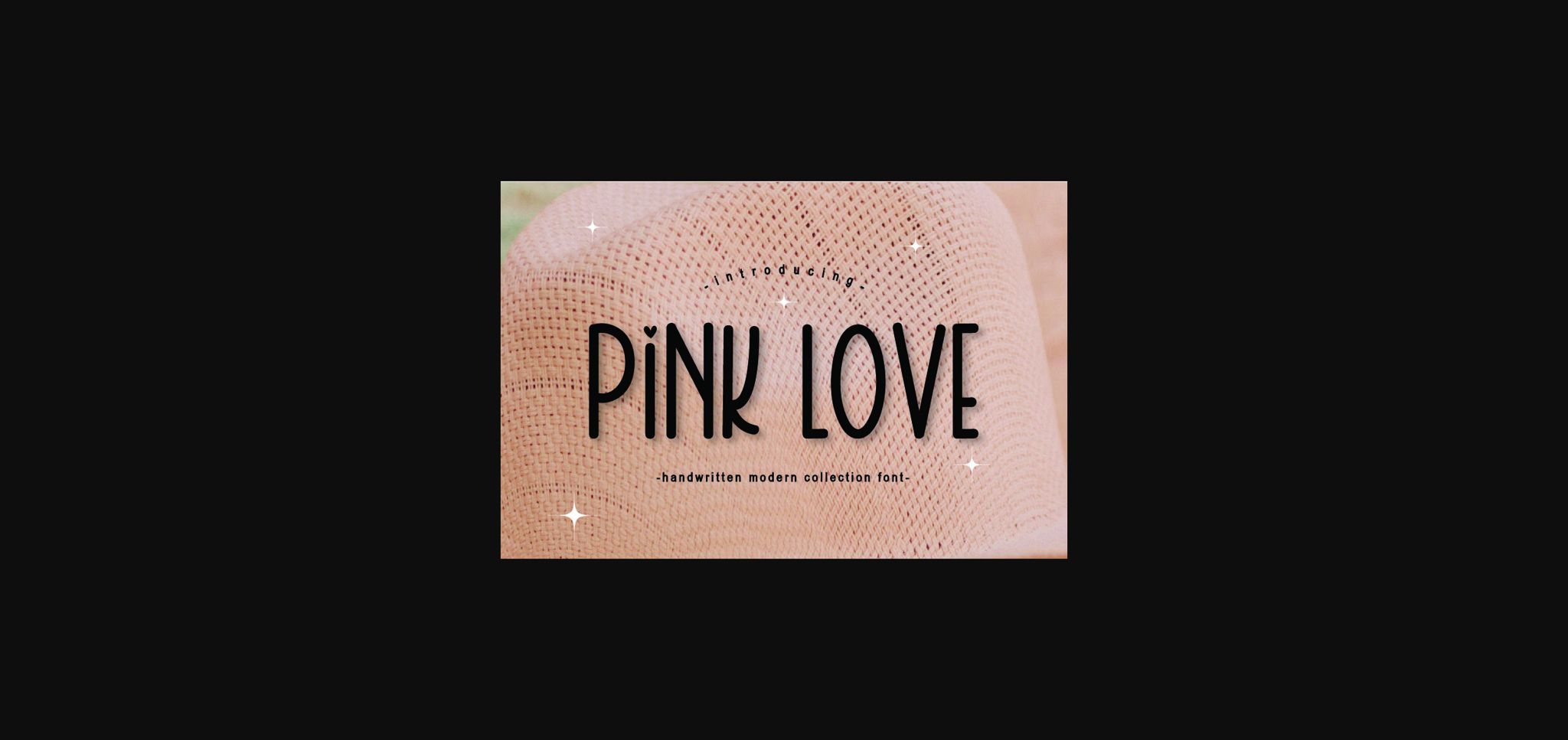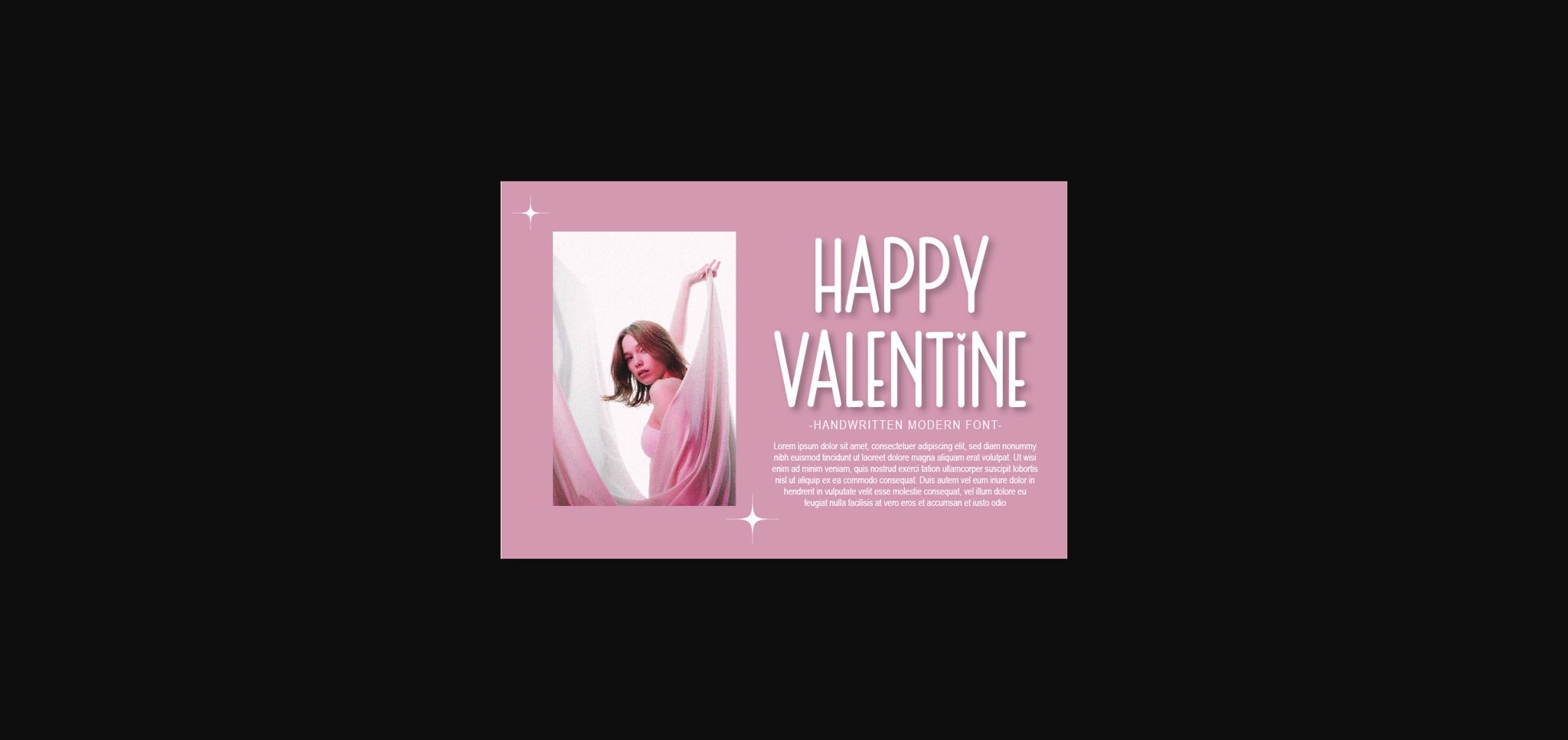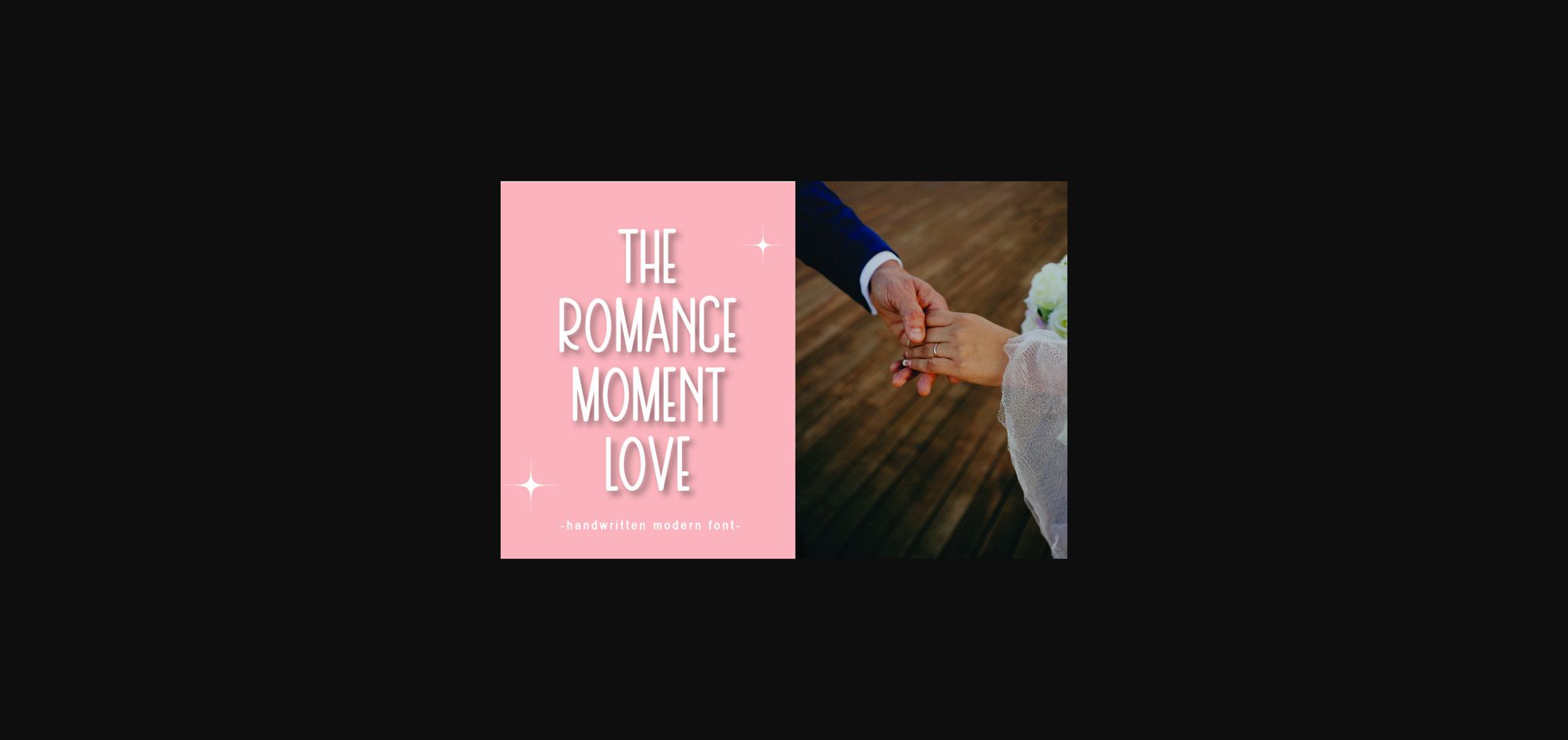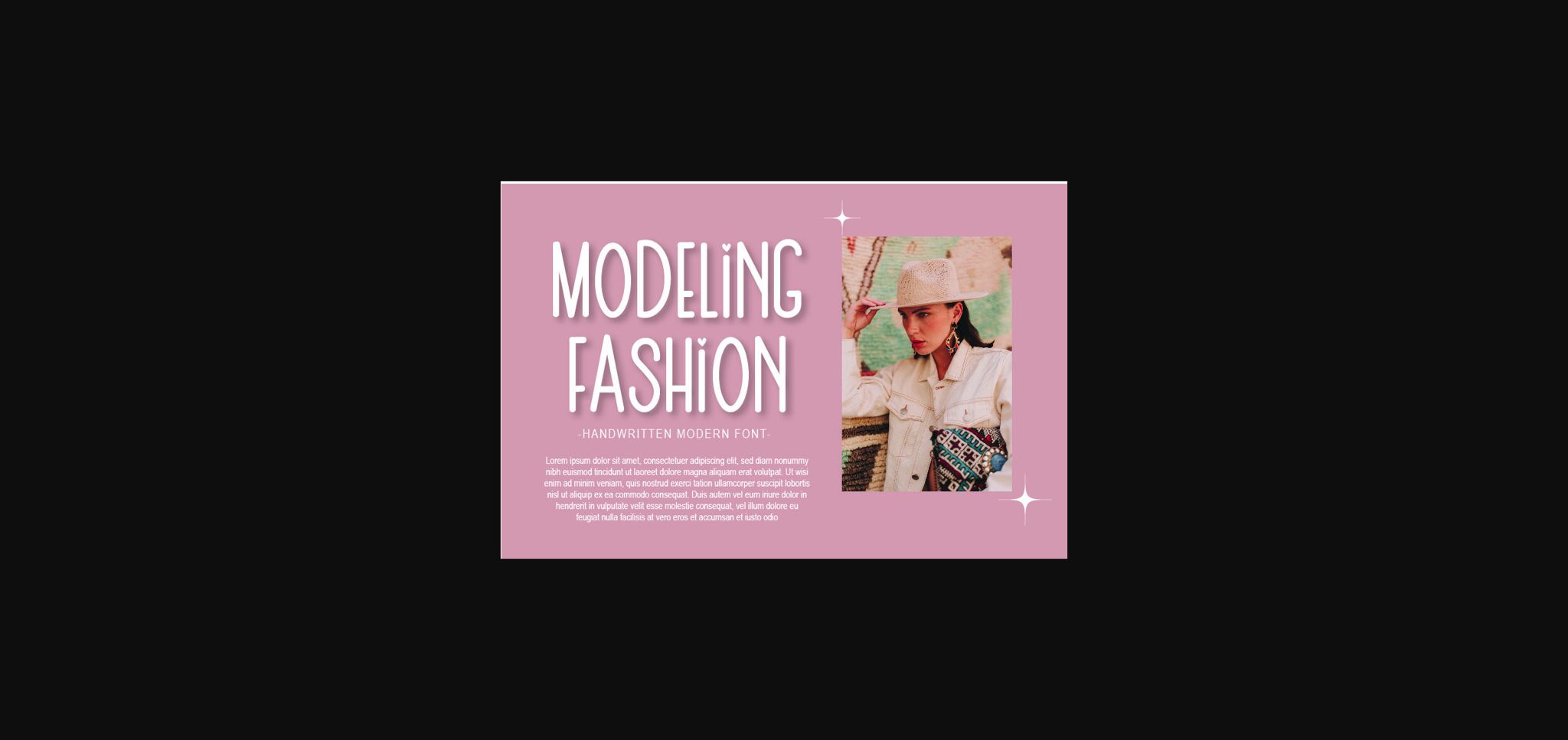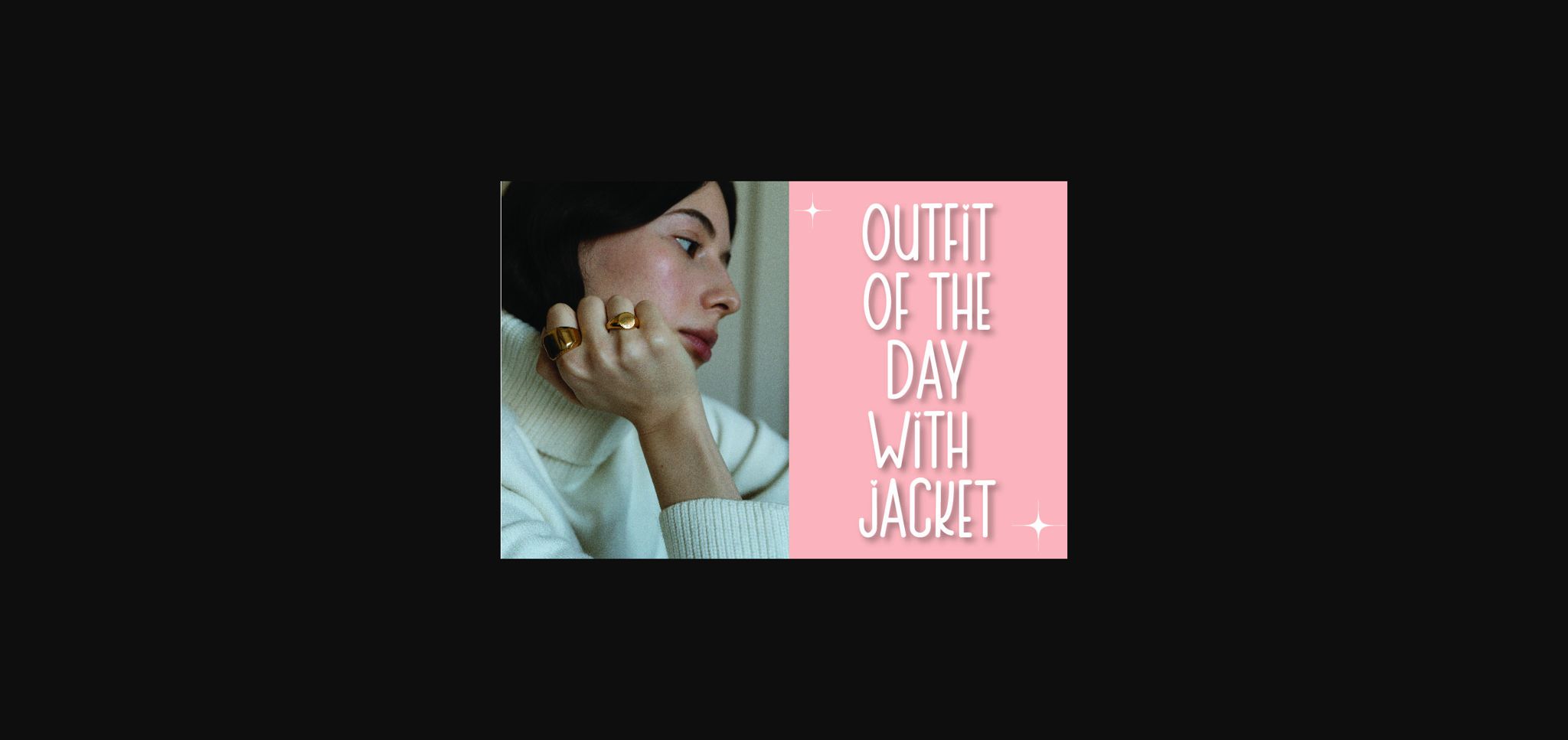
Pink Love Font
About Pink Love Font
Pink Love is a minimal and neat sans-serif font. It can easily be matched to an incredibly large set of projects, so add it to your creative ideas and notice how it makes them stand out!